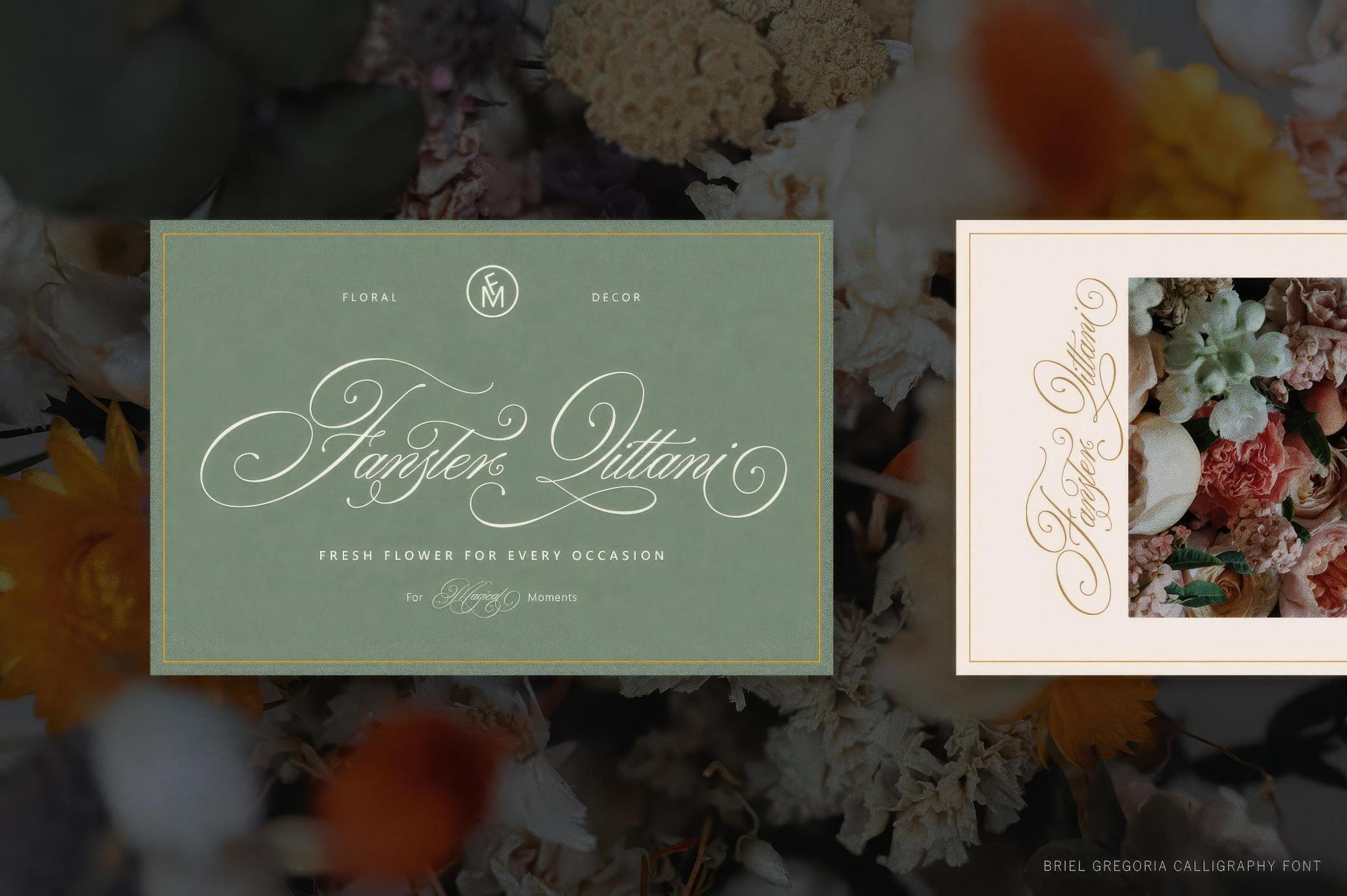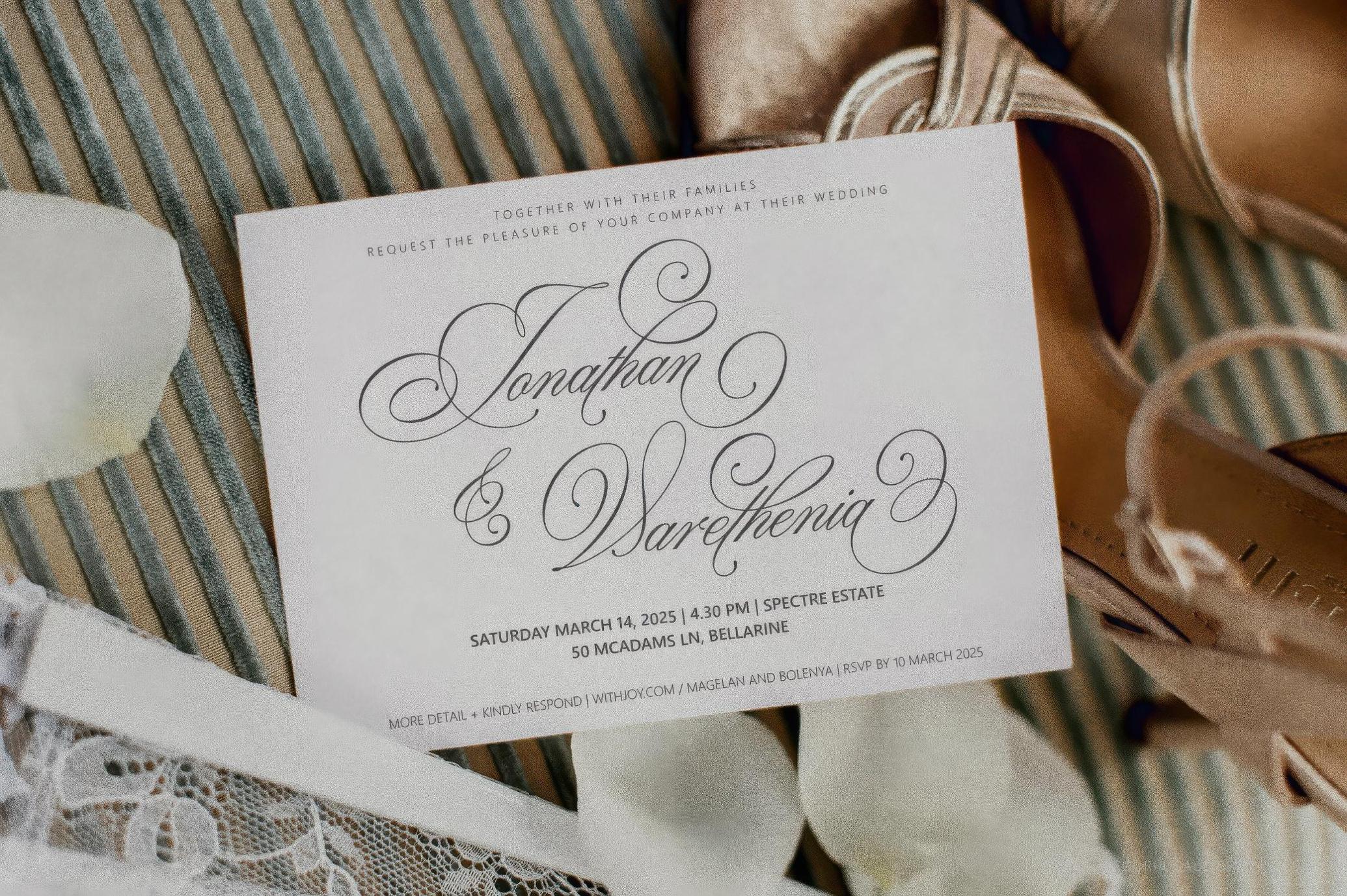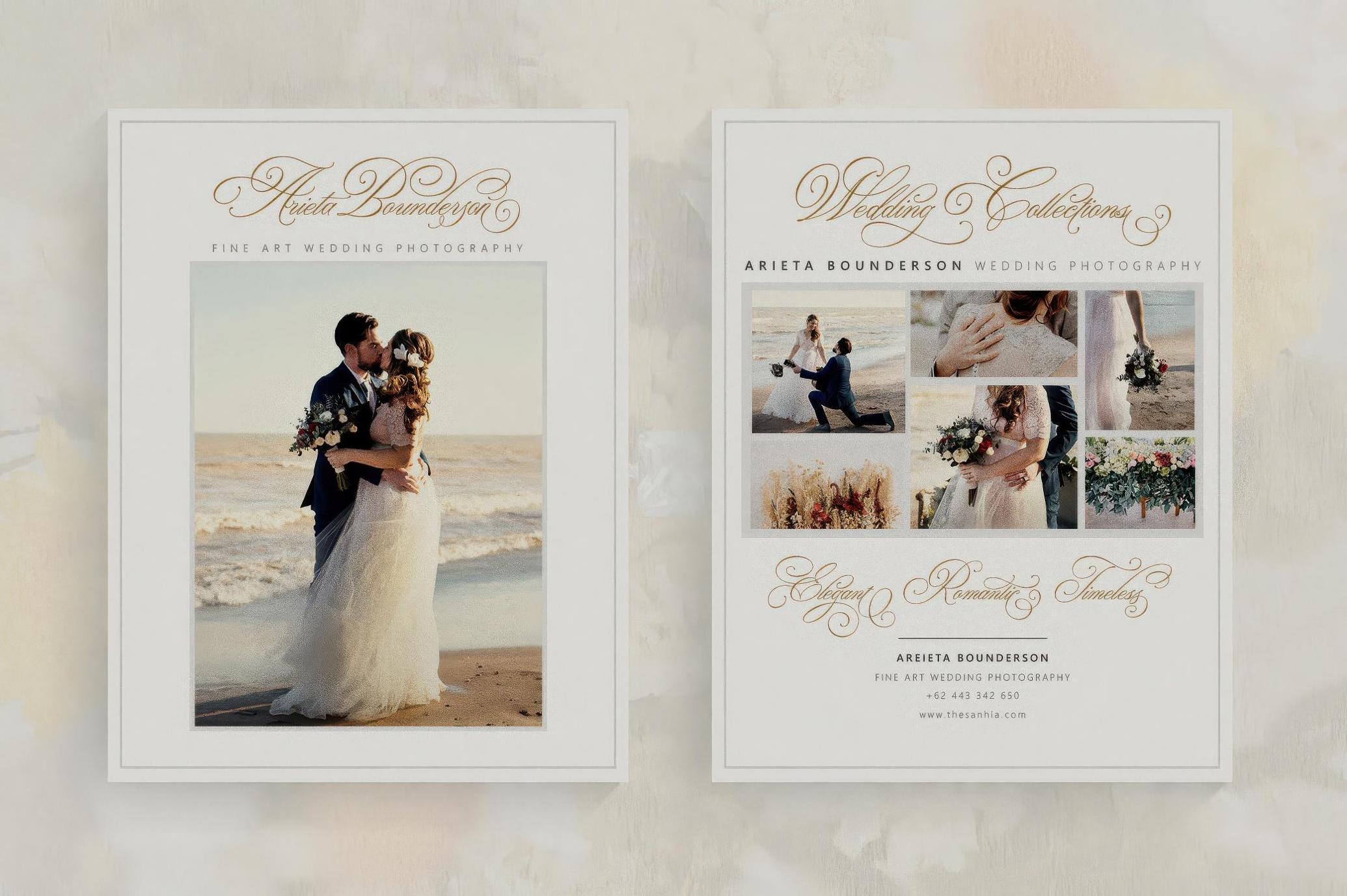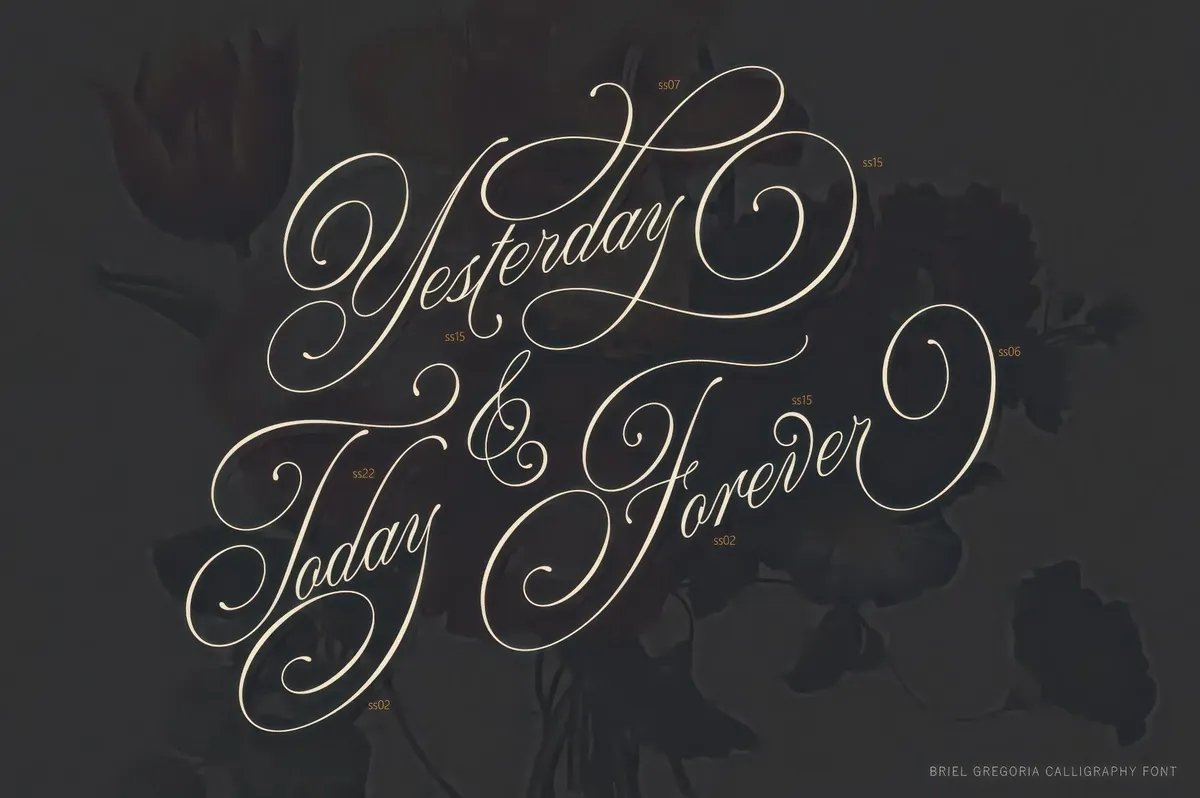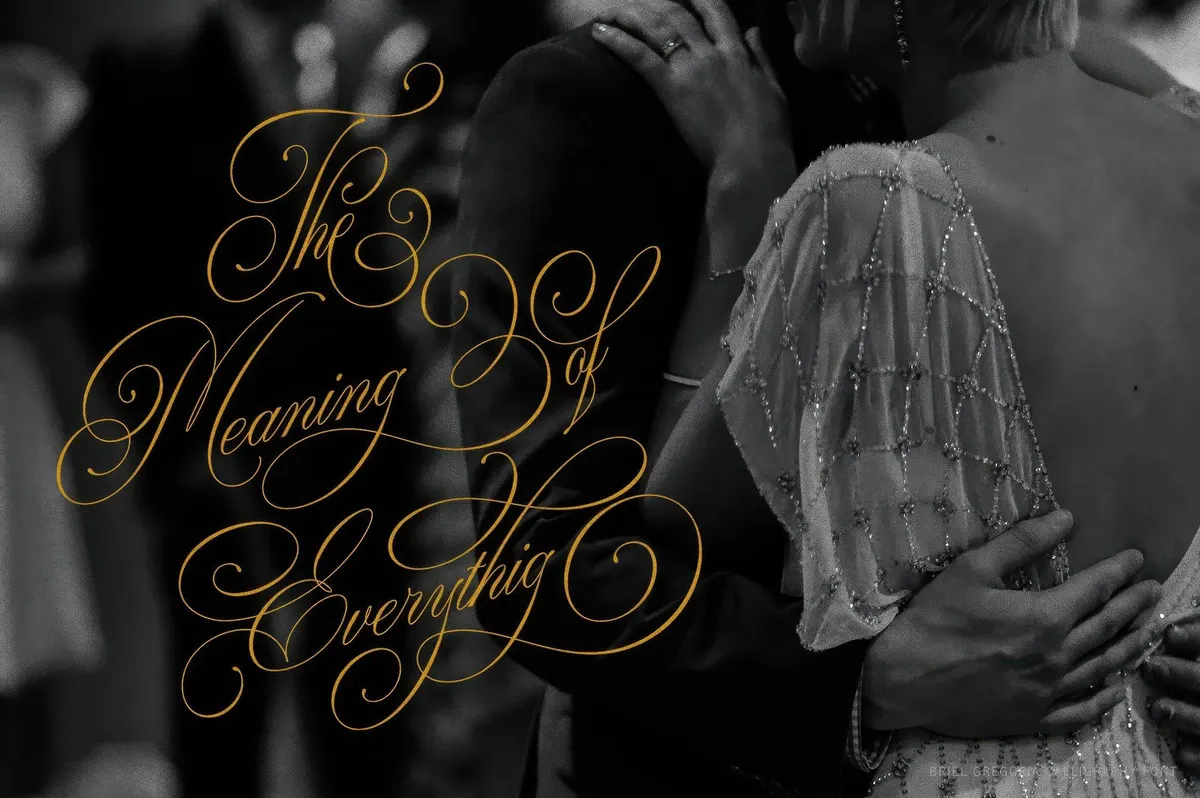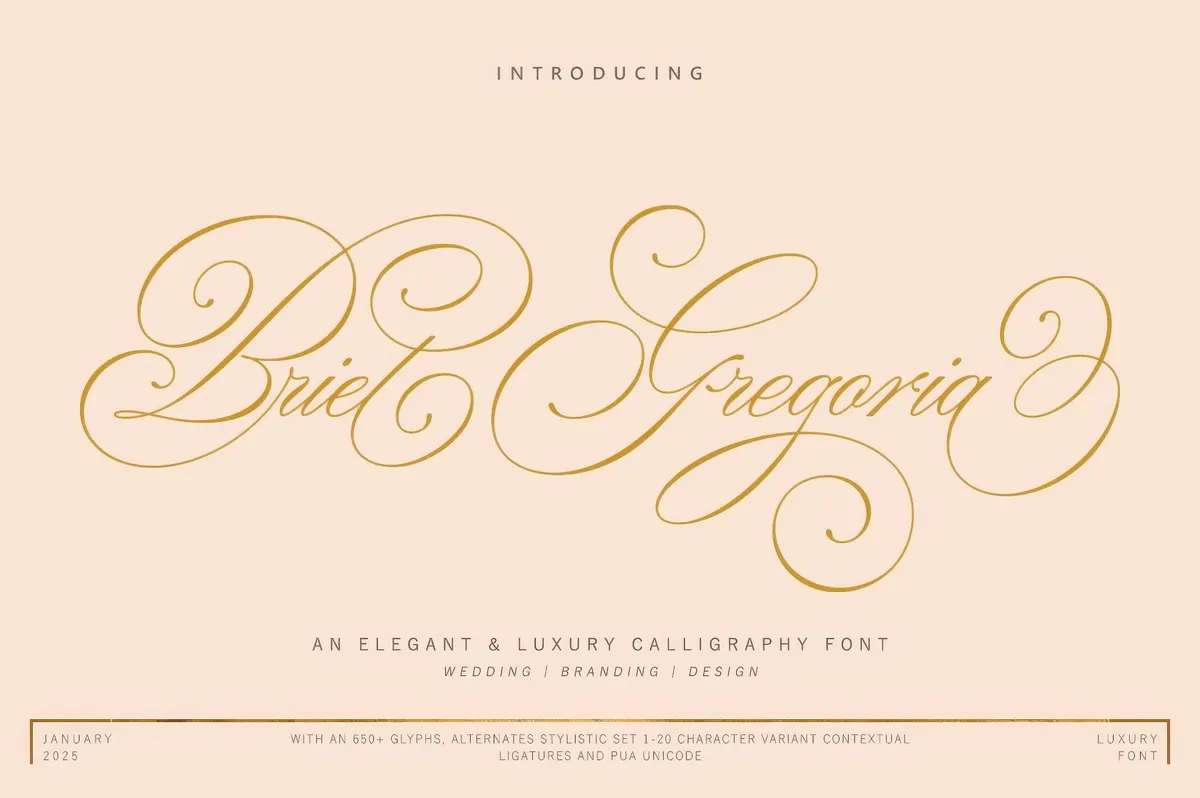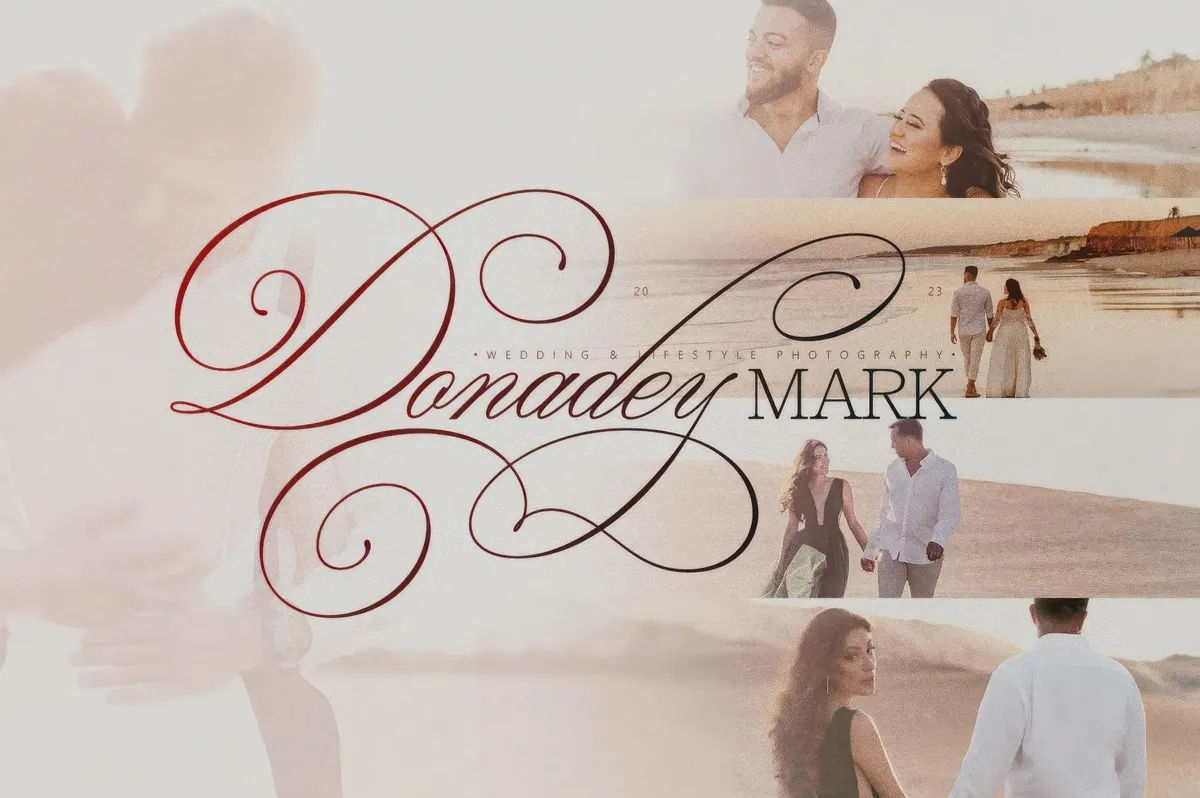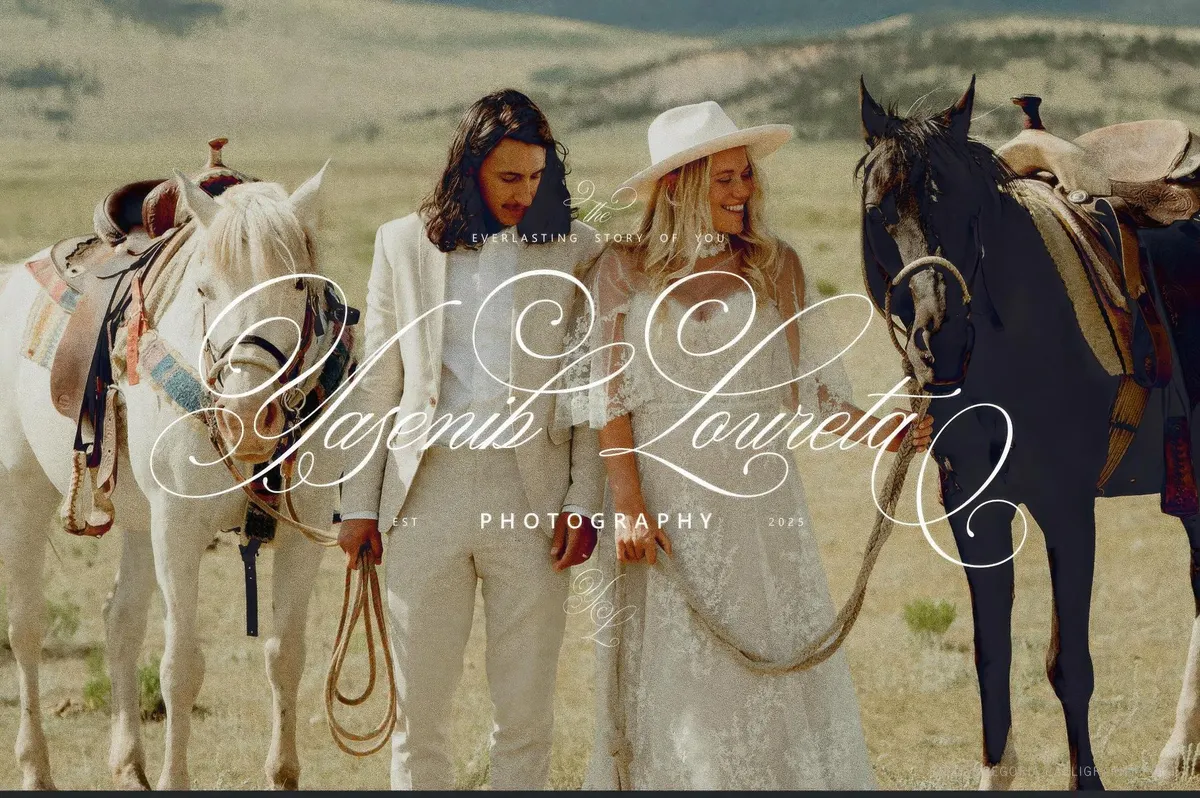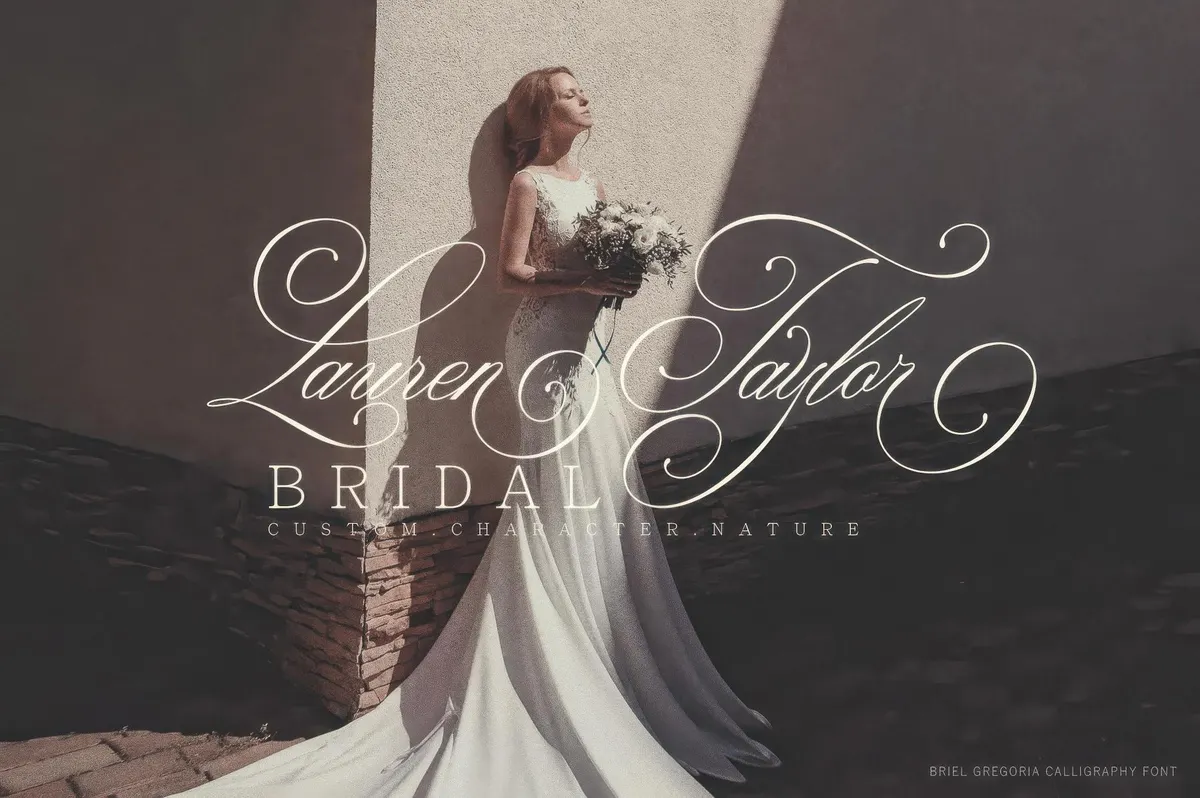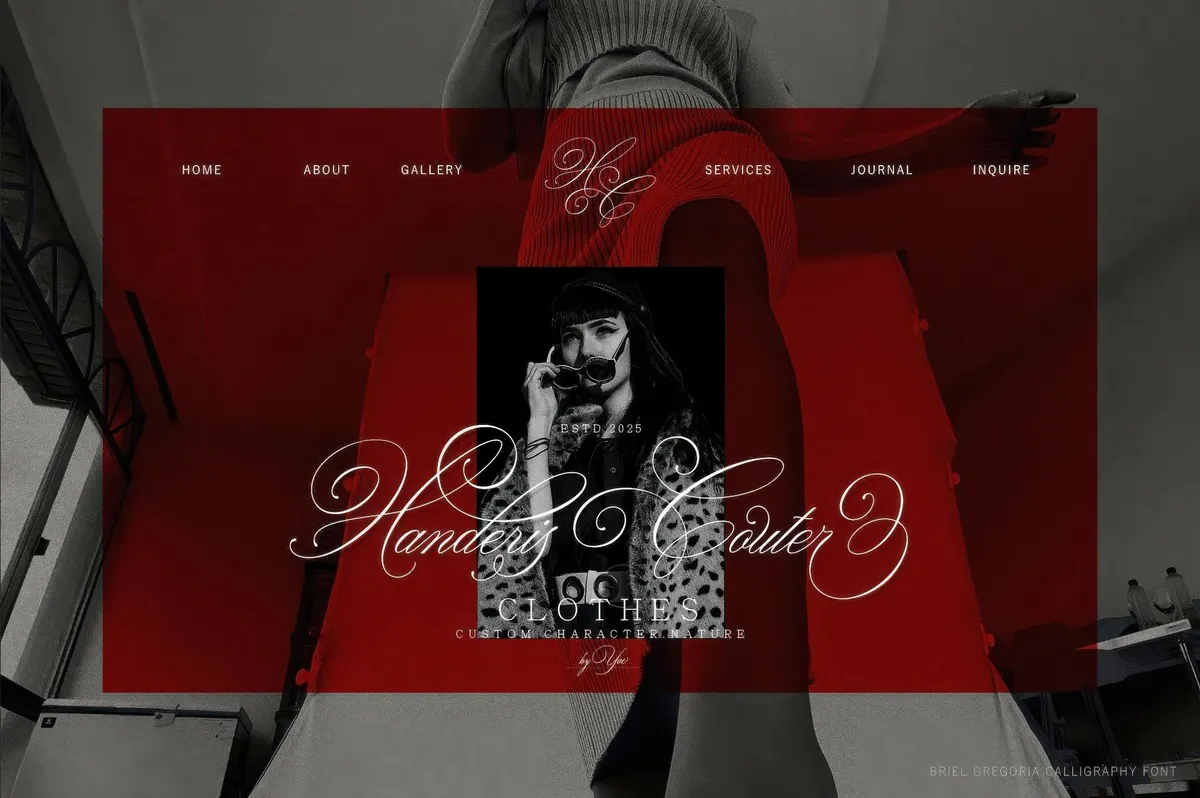
Briel Gregoria
Briel Gregoria, a romantic script typeface, captures the elegance and intimacy of life’s most meaningful moments. With graceful curves and a refined calligraphic flow, it’s tailored for wedding invitations, stationery suites, save-the-dates, bridal shower signage, vow books, and everything in between. The swashes are lavish but balanced — a timeless script that speaks softly yet leaves a lasting impression.
The font includes over 650 glyphs, and an extensive array of OpenType features: swashes, contextual alternates, and 20 stylistic sets to give your text a bespoke, hand-lettered feel. Briel Gregoria is fully accessible and PUA encoded — so every flourish and alternate is right at your fingertips. It supports international characters and is ready to bring charm to editorial designs, brand logos, elegant packaging, and of course, all things wedding.